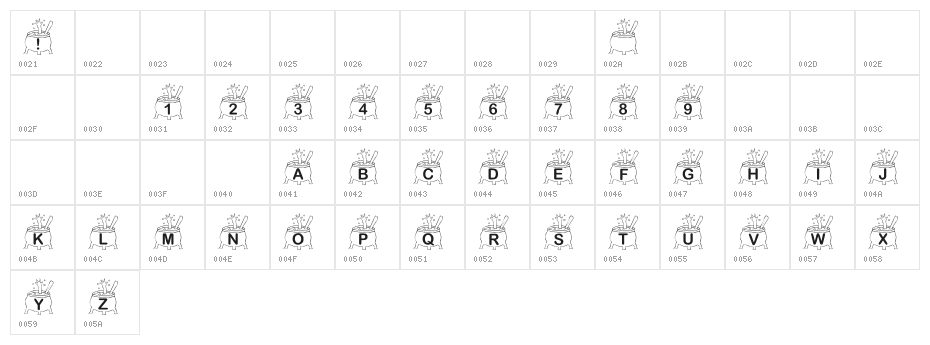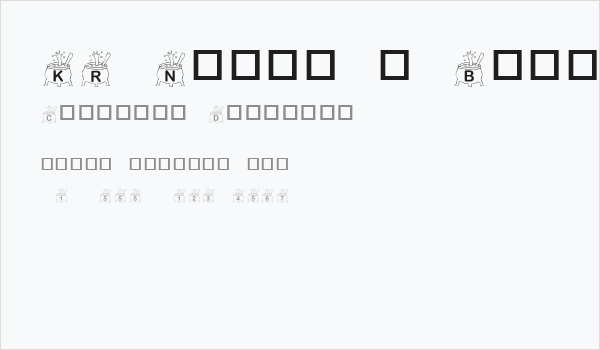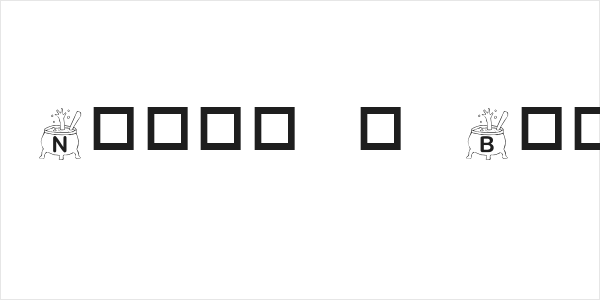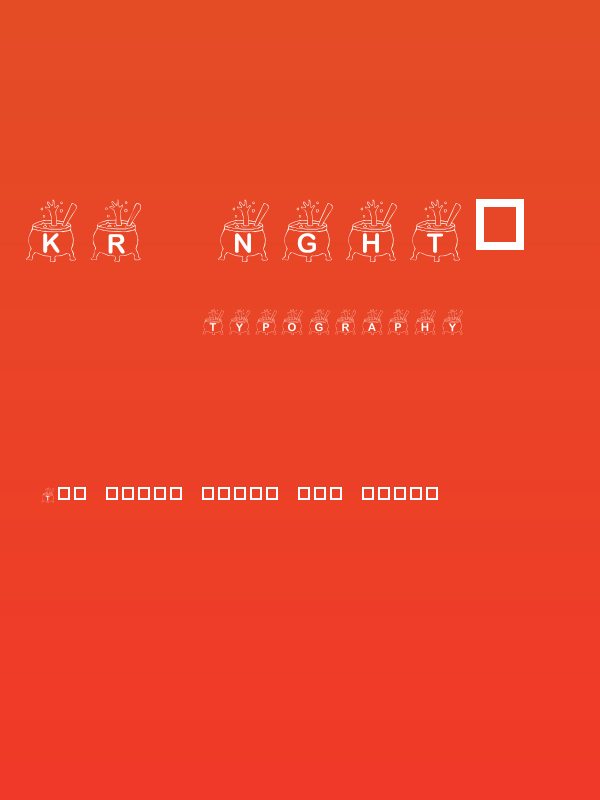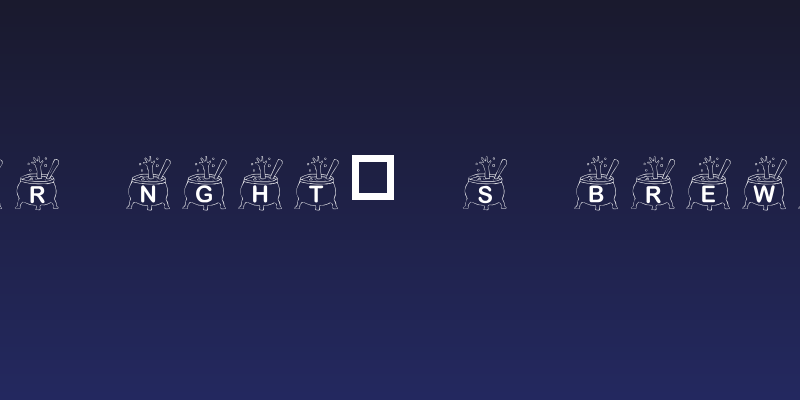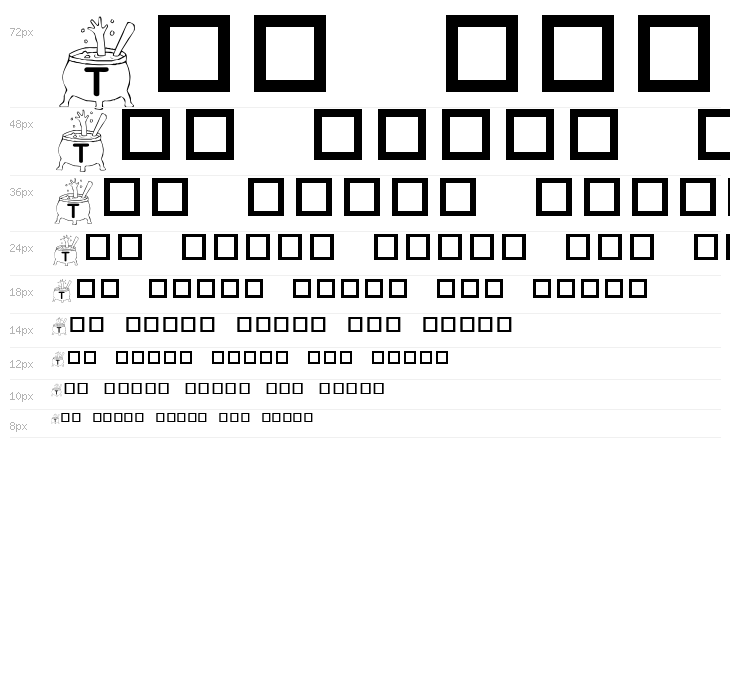
KR Nght's Brew! Font
KR Nght's Brew! Description
This whimsical and playful font features each character enclosed within a bubbling cauldron, adding a magical and enchanting theme to the text. The letters are bold and clear, ensuring readability while maintaining a fun and decorative style. The cauldrons are detailed with handles and bubbling effects, enhancing the fantasy element. This font is perfect for projects that require a touch of magic or fantasy, such as Halloween-themed designs, children's books, or party invitations.
| Proposed Projects | Ideal for Halloween invitations, fantasy book covers, children's party decorations, and themed event posters. |